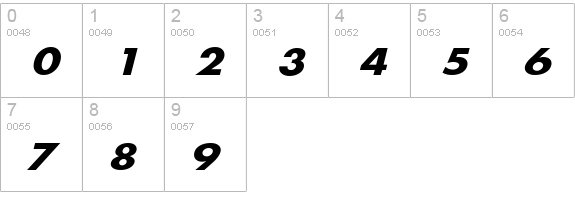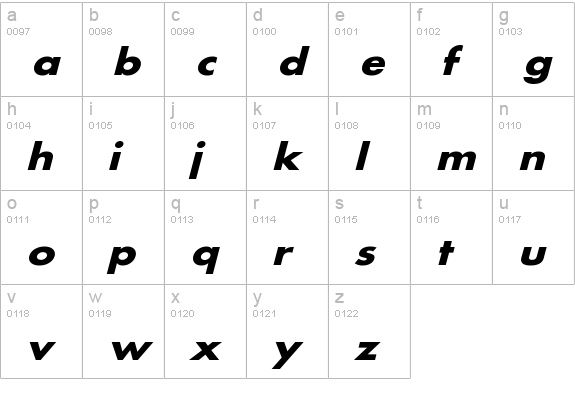
FuturaExtObl-Bo Font Details
FuturaExtObl-Bo is a modern and sleek font that exudes a sense of sophistication and professionalism. With its extended oblique design, this typeface adds a unique twist to any design project, making it stand out from the crowd. The bold and stylish appearance of FuturaExtObl-Bo is perfect for conveying a sense of confidence and innovation. What's even better is that FuturaExtObl-Bo is completely free to download at FontsMarket.com. This means you can easily access this versatile font for all your creative needs without any cost. Whether you're working on a website, branding materials, or any other design project, FuturaExtObl-Bo is a fantastic choice to elevate your work and make a lasting impression. Download it now and enhance your designs with this premium font for free!